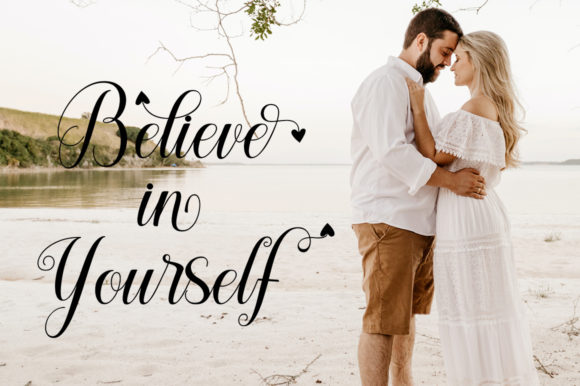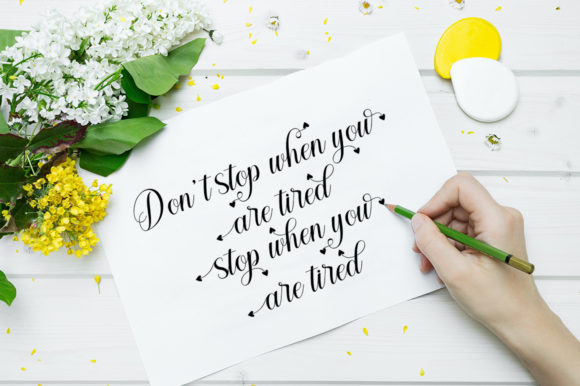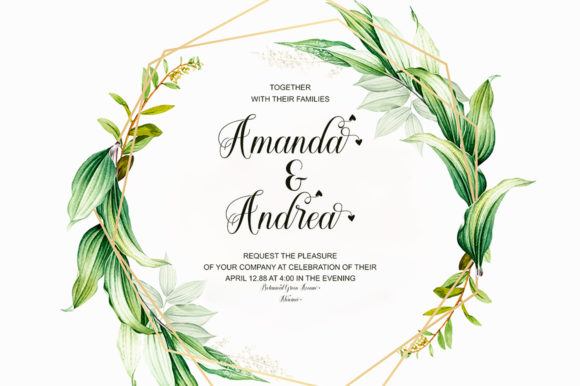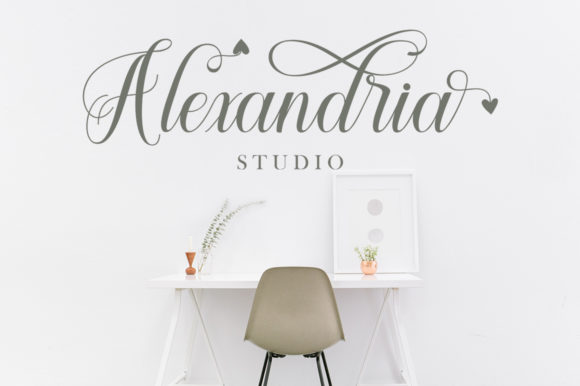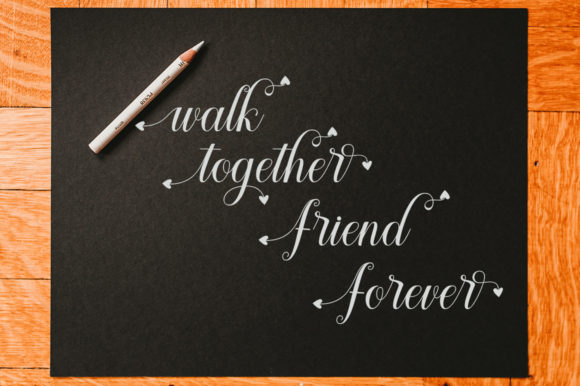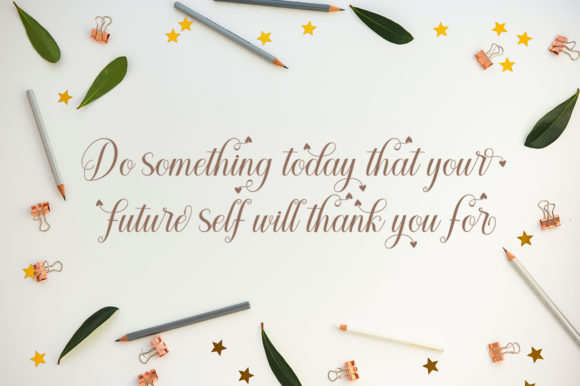
Baby Amanda Font: A Delicate and Distinct Handwritten Font for Creative Projects
Are you a designer, crafter, or DIY enthusiast looking for a unique and elegant font to add a personal touch to your creative projects? Look no further than the Baby Amanda Font, a delicate, distinct, and flowing handwritten font that’s sure to bring your ideas to life. In this article, we’ll explore the features and benefits of the Baby Amanda Font, and show you how to make the most of this beautiful font in your designs.
What is Baby Amanda Font?
Baby Amanda Font is a carefully crafted handwritten font that’s designed to add a touch of elegance and sophistication to any project. With its delicate and flowing lines, this font is perfect for creating beautiful and eye-catching designs that stand out from the crowd. Whether you’re working on a DIY craft project, a graphic design project, or a digital product, the Baby Amanda Font is sure to make a lasting impression.
Key Features of Baby Amanda Font
- Delicate and Distinct: The Baby Amanda Font features delicate and distinct lines that give it a unique and elegant look.
- Flowing Handwritten Style: This font has a flowing handwritten style that’s perfect for creating beautiful and eye-catching designs.
- PUA Encoded: The Baby Amanda Font is PUA encoded, which means you can access all of the glyphs and swashes with ease.
Benefits of Using Baby Amanda Font
So why choose the Baby Amanda Font for your creative projects? Here are just a few benefits of using this beautiful font:
- Adds a Personal Touch: The Baby Amanda Font adds a personal touch to any project, making it perfect for DIY craft projects, handmade cards, and other personalized items.
- Versatile: This font is versatile and can be used in a variety of projects, from graphic design to digital products.
How to Use Baby Amanda Font
Using the Baby Amanda Font is easy. Here are a few tips to get you started:
- Access Glyphs and Swashes: Use the PUA encoded feature to access all of the glyphs and swashes.
- Experiment with Different Sizes and Colors: Experiment with different sizes and colors to find the perfect look for your project.
Ideas for Using Baby Amanda Font
The Baby Amanda Font is perfect for a variety of creative projects. Here are a few ideas to get you started:
- DIY Craft Projects: Use the Baby Amanda Font to add a personal touch to your DIY craft projects, such as handmade cards, scrapbooking, and other paper crafts.
- Graphic Design Projects: Use this font in your graphic design projects, such as brochures, flyers, and posters.
- Digital Products: Use the Baby Amanda Font in your digital products, such as printable art, planners, and journals.
In conclusion, the Baby Amanda Font is a beautiful and elegant handwritten font that’s perfect for adding a personal touch to your creative projects. With its delicate and flowing lines, PUA encoded feature, and versatility, this font is sure to bring your ideas to life. Whether you’re a designer, crafter, or DIY enthusiast, the Baby Amanda Font is a must-have font for any creative project.